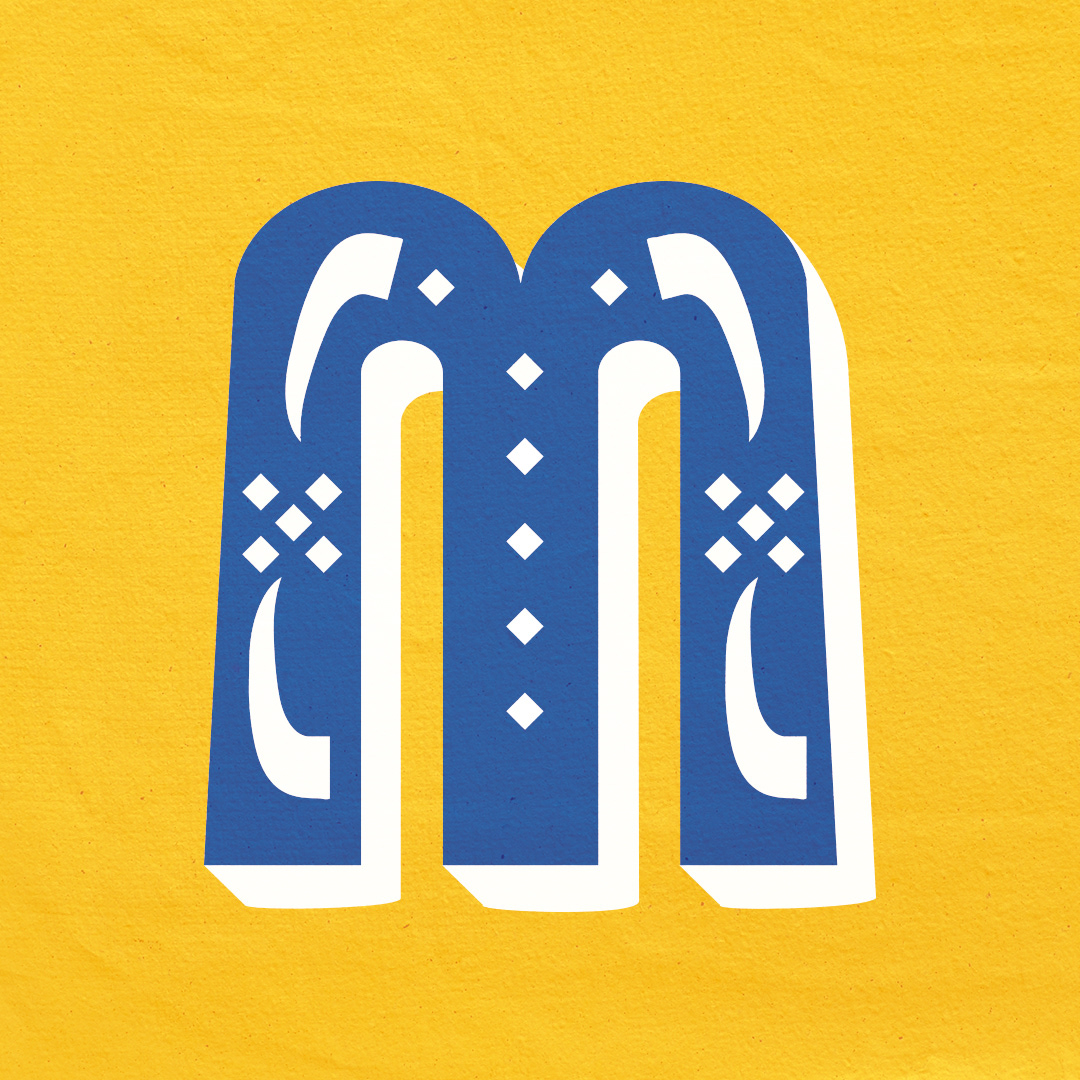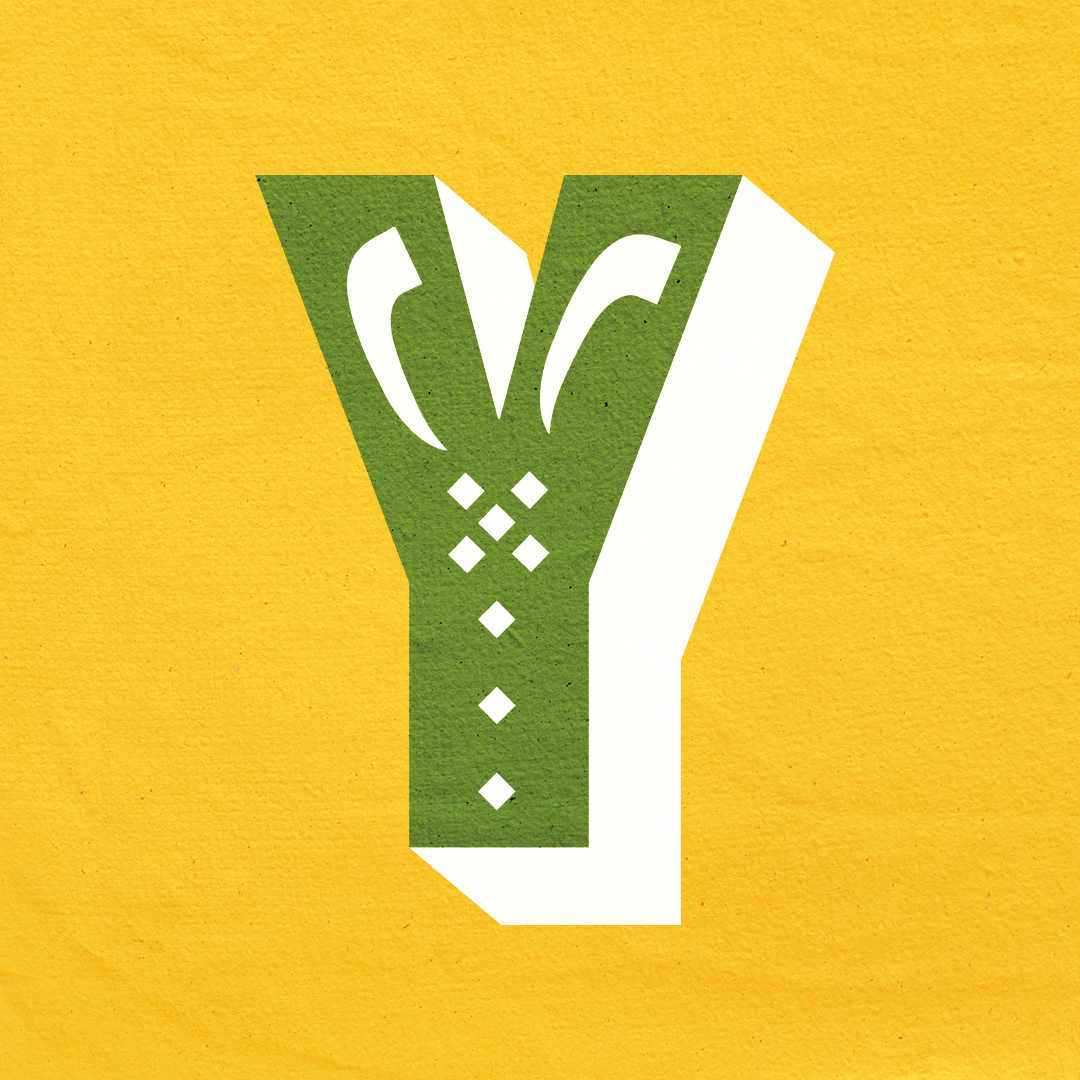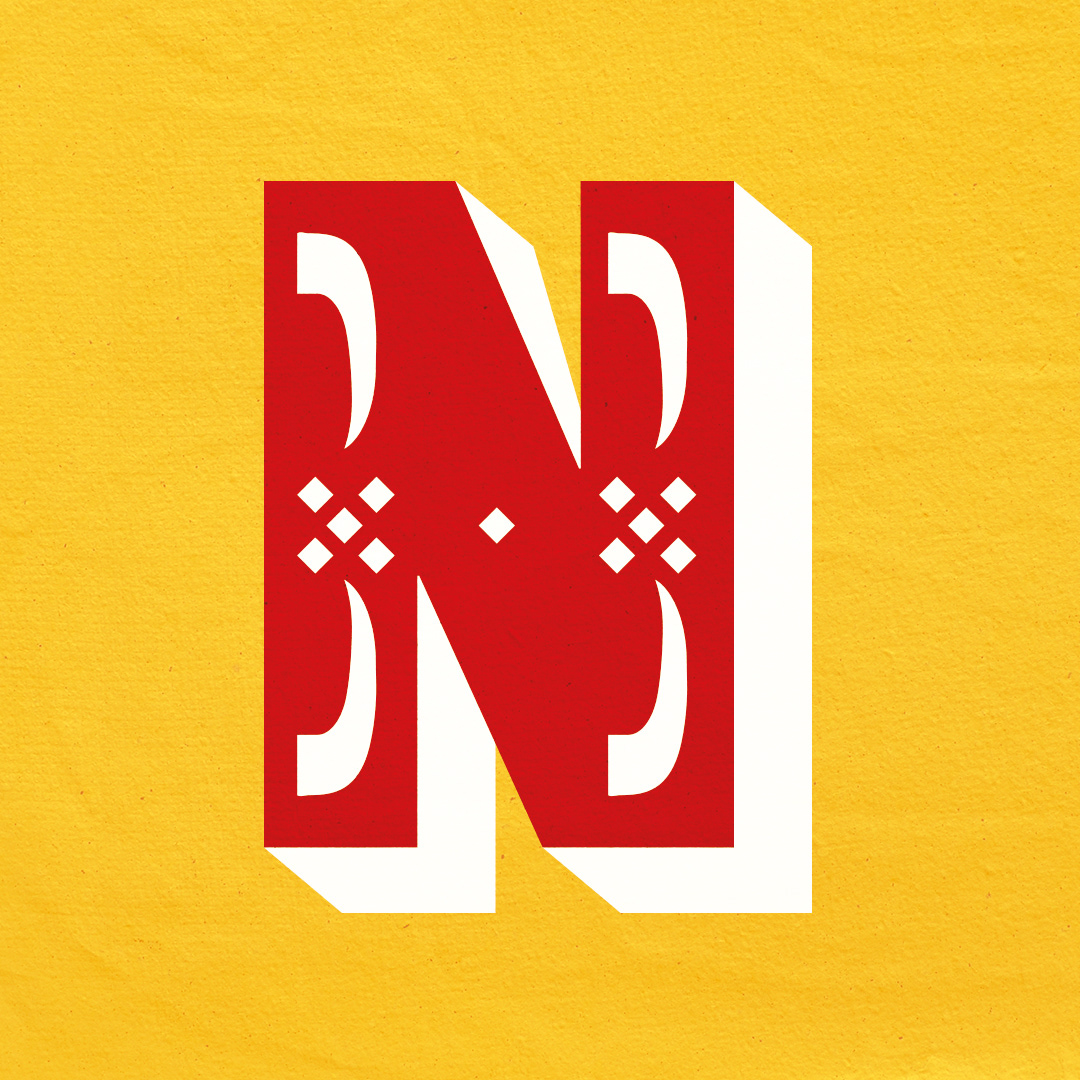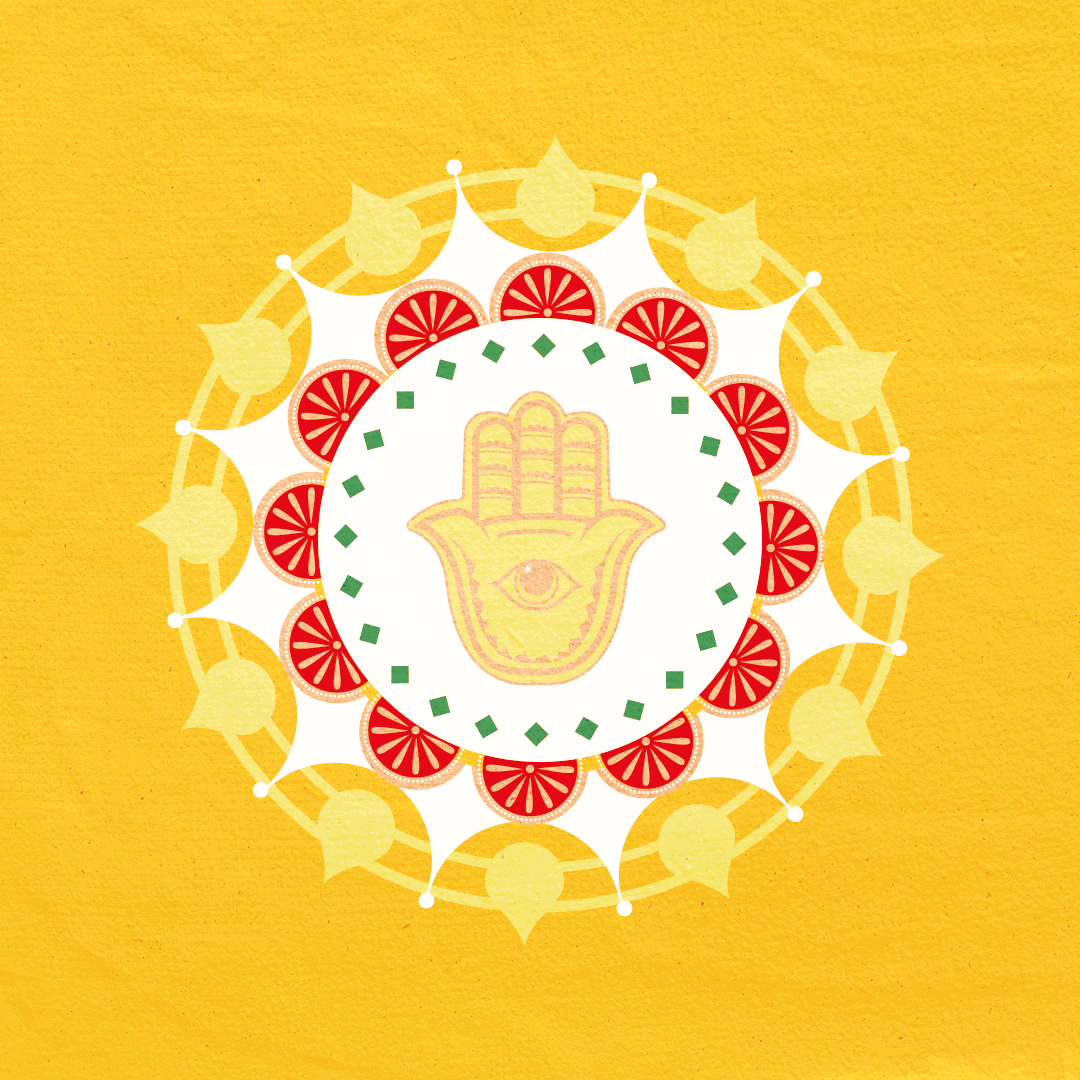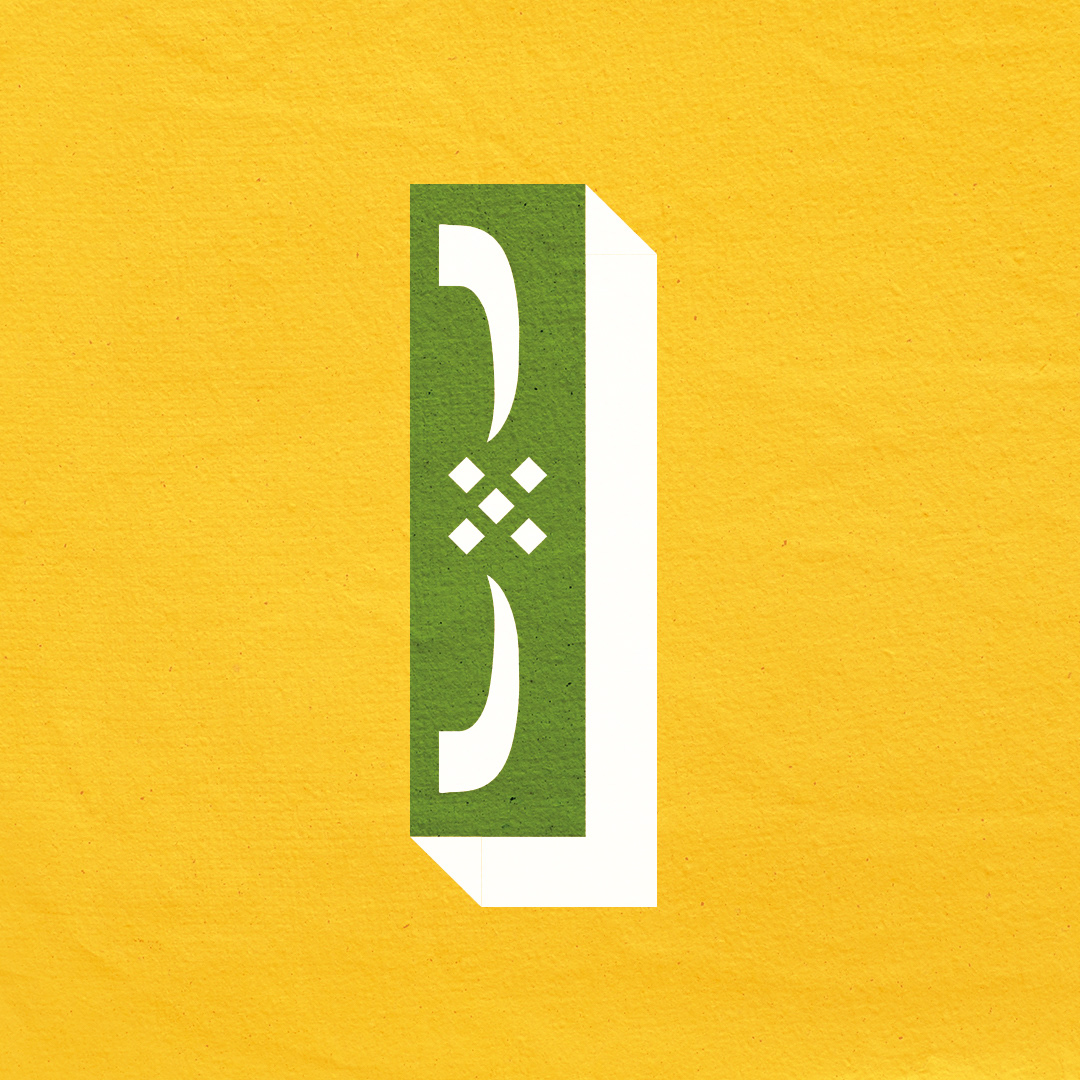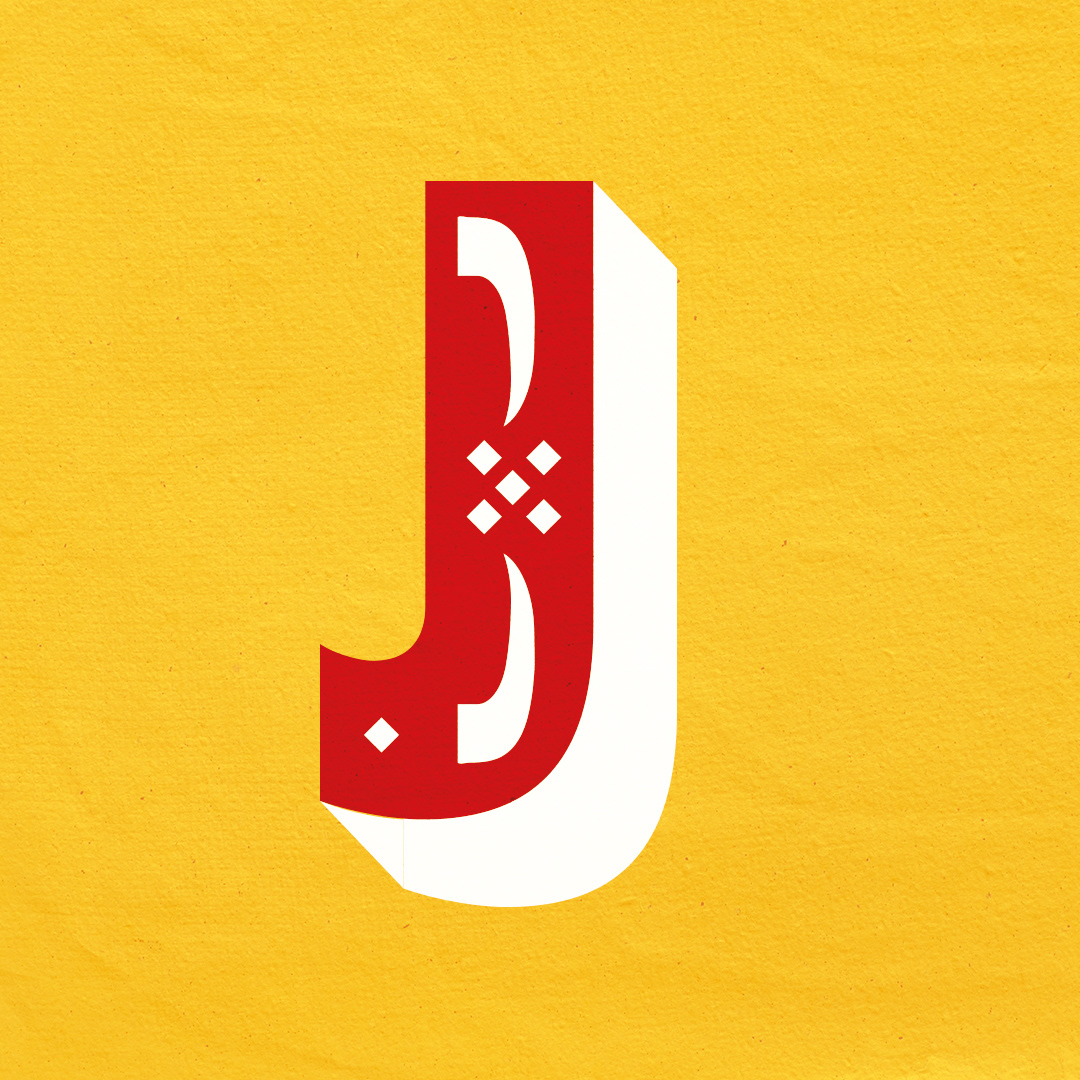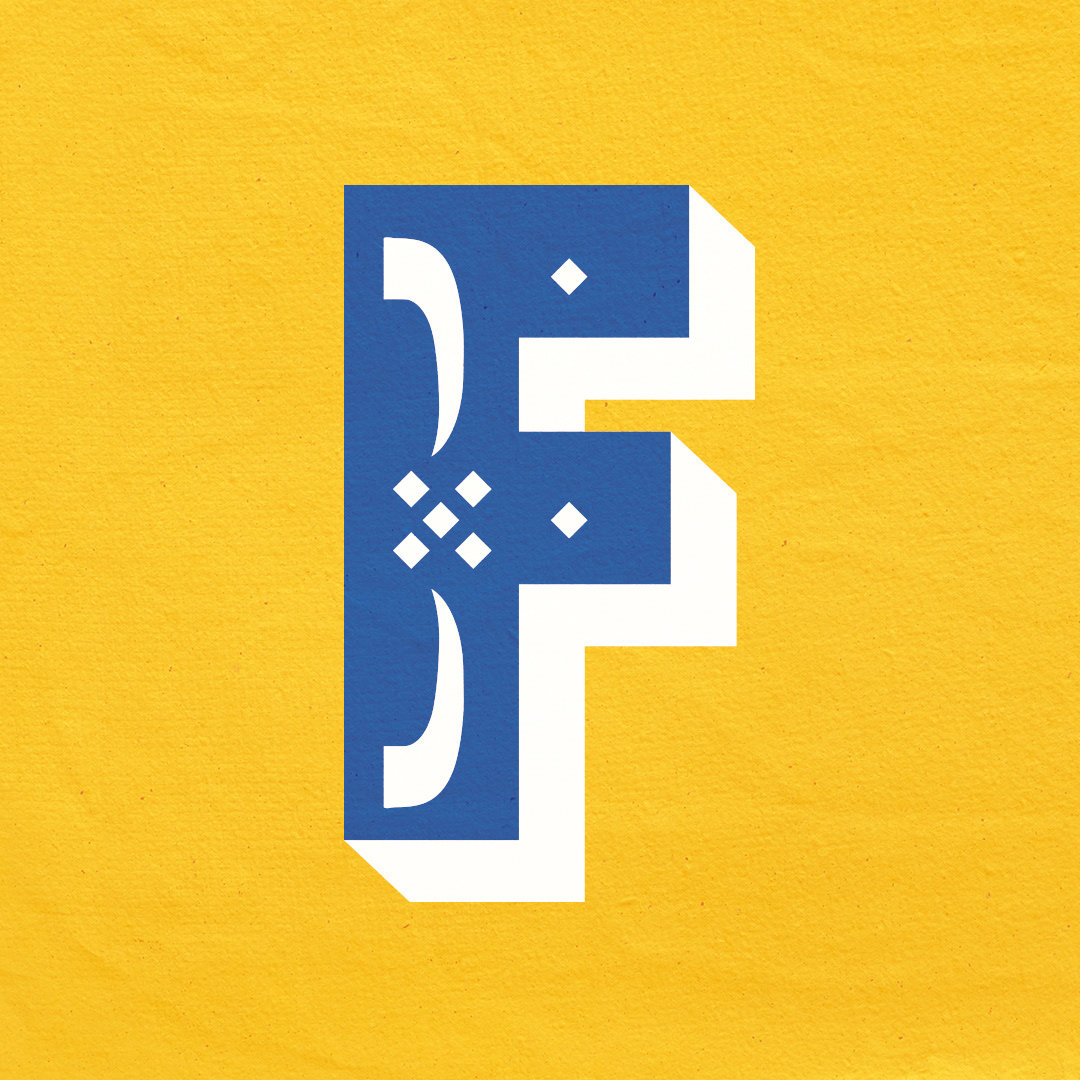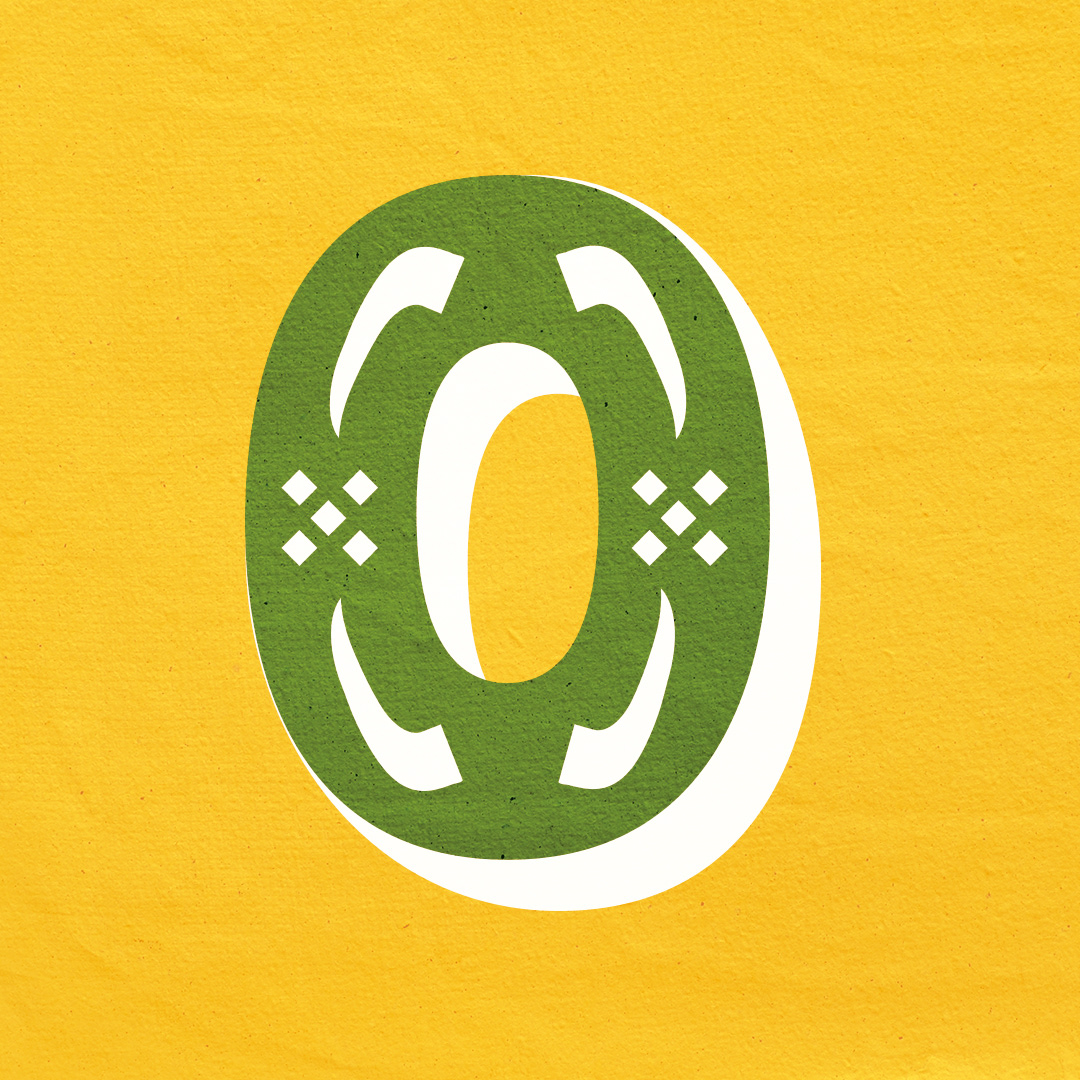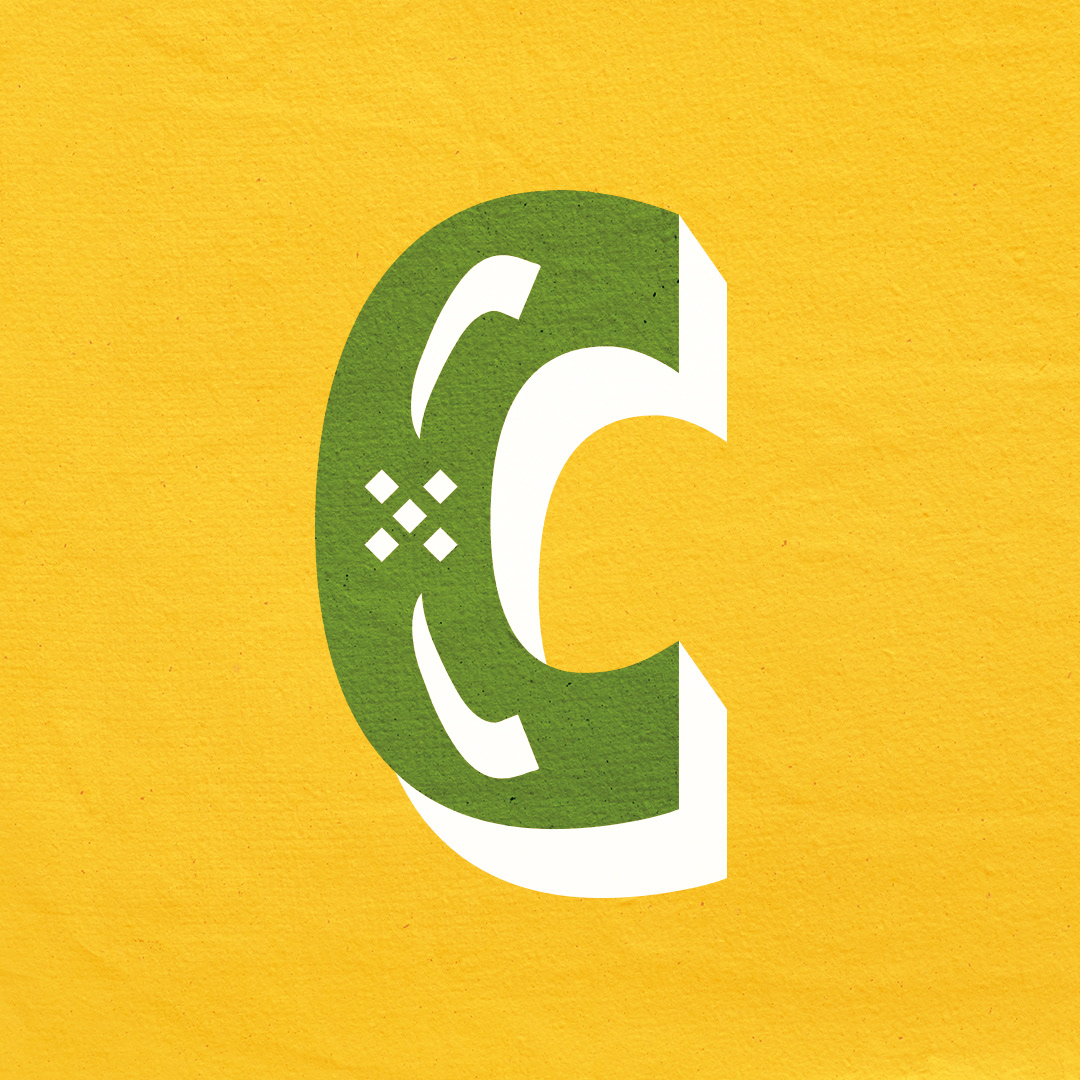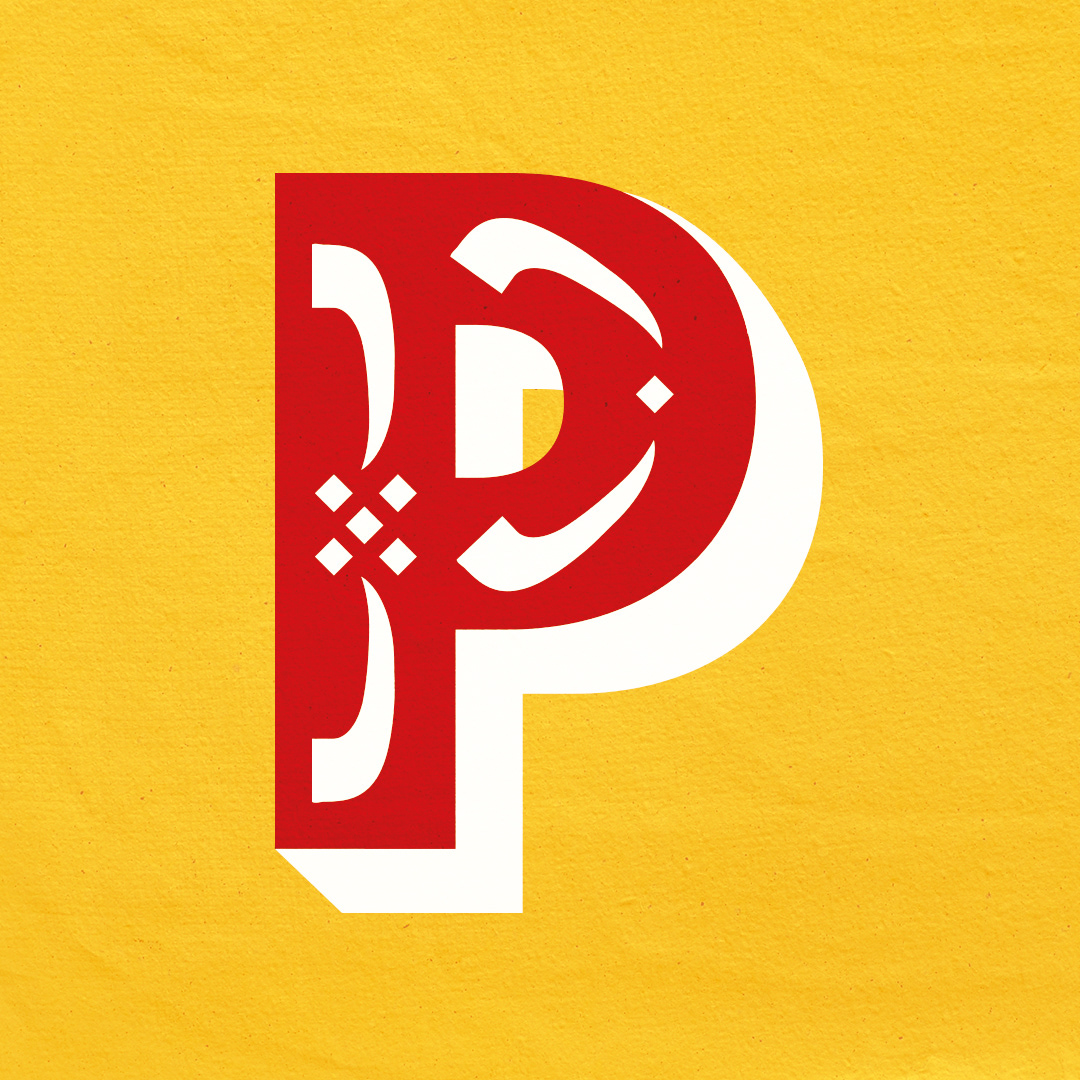
BLOW HORN
BLOW HORN is an experimental typography project, as I am learning to drive on Indian roads, I notice the art on trucks and busses around me. I found Typography, Visual Symbols and Colours very fascinating and my inspired me to develop my custom typeface. This art form is very popular in India, painters use primary colours and bold typefaces to grab attention. The title "Blow Horn" instructs the other vehicles to not over-take without blowing horn is a very common phrase used in trucks and busses.